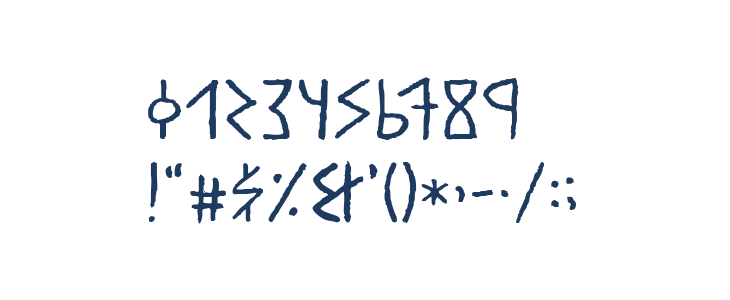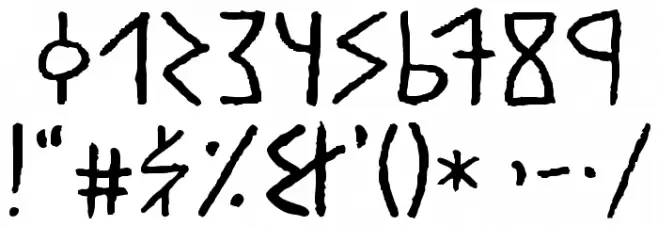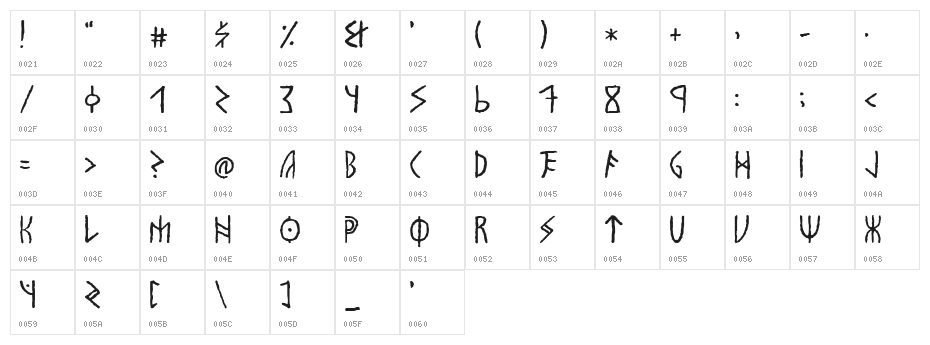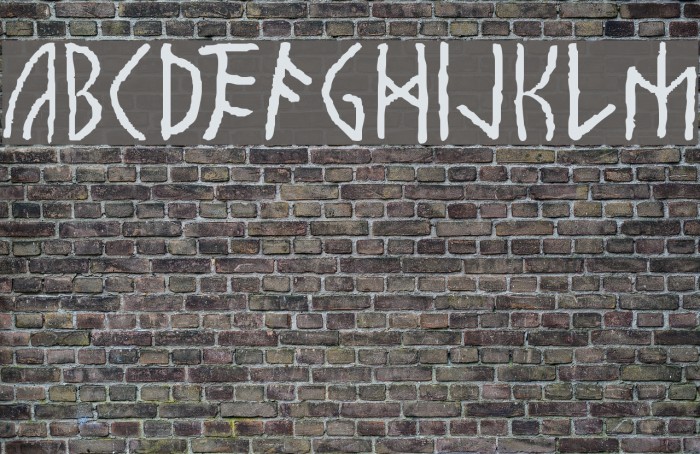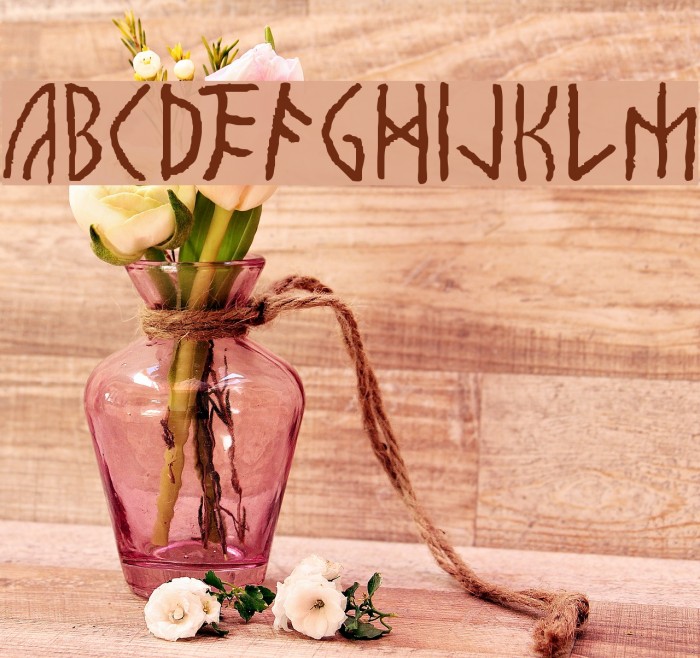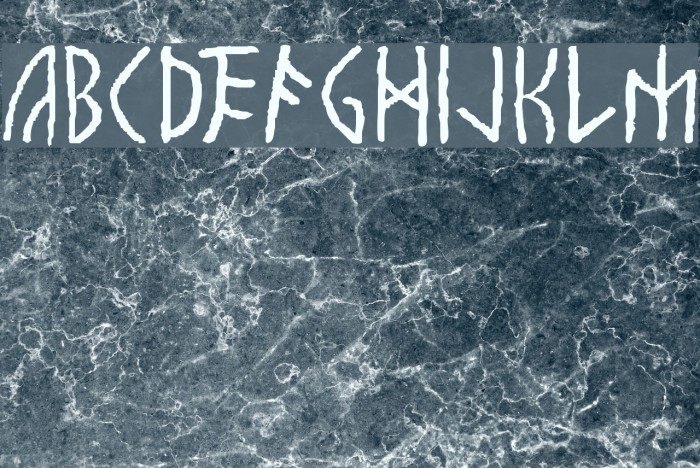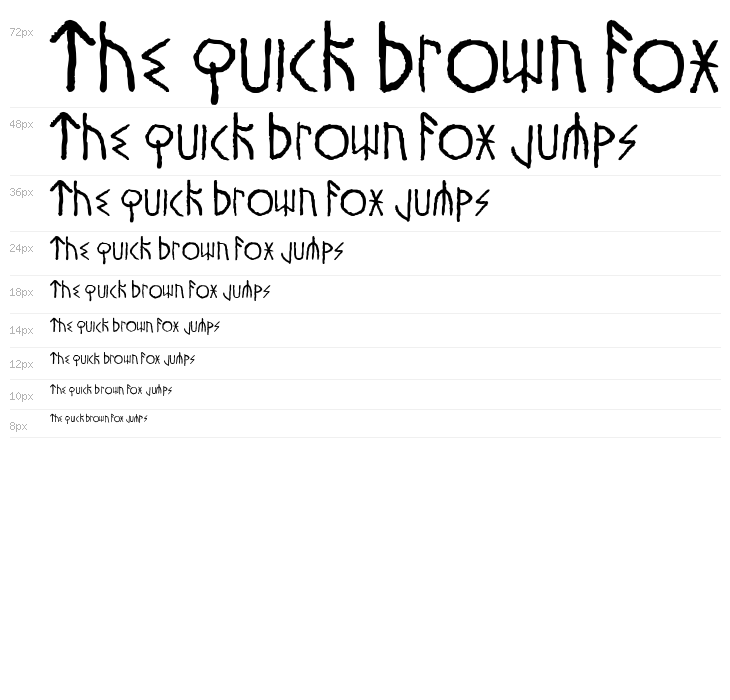
Vinland Font
Vinland Description
This font features a rugged, ancient style reminiscent of runic inscriptions. The characters are uneven and jagged, giving an impression of being hand-carved into stone or wood. The uppercase and lowercase letters maintain a consistent theme, with angular lines and sharp edges. Numbers and special characters follow the same design ethos, ensuring a cohesive look across all elements. The font's unique appearance makes it suitable for projects requiring a historical or mystical touch.
| Use Case | Headlines, Logos, Themed Events |
| Proposed Projects | Ideal for fantasy-themed designs, historical reenactment posters, video game graphics, or any project needing an ancient or mystical aesthetic. |